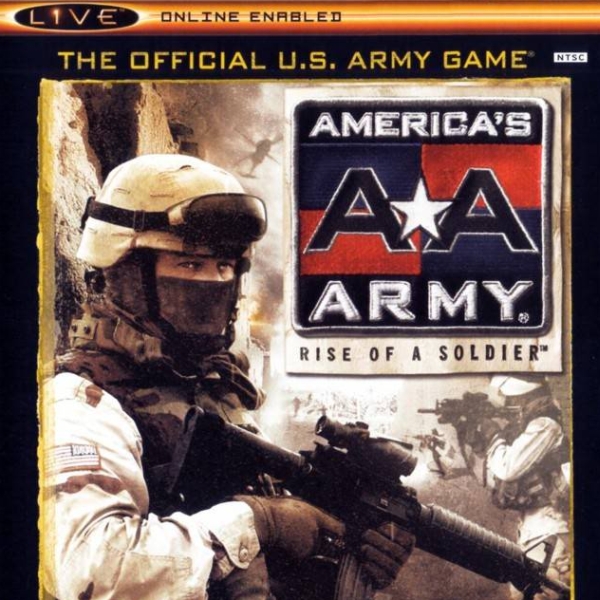
America's Army Font
Fonts in UseAmerica’s Army is a first-person shooter video game developed by the United States Army as a recruitment tool. The game features realistic military tactics and missions and has been released for free to the public since 2002.
The logo of the game likely uses Bank Gothic, a geometric sans-serif font created by Morris Fuller Benton for the American Type Founders in 1930. Additional information about the font can be found here.